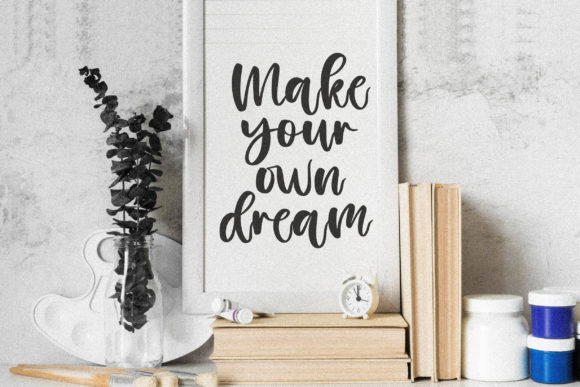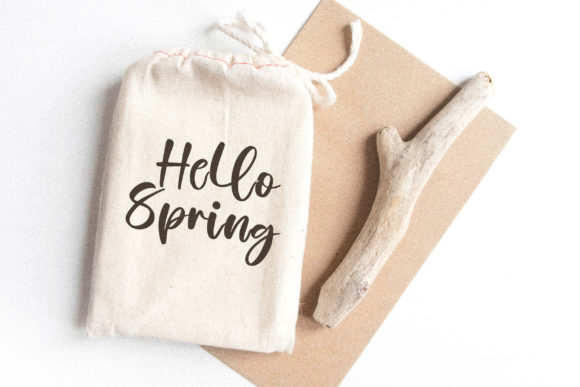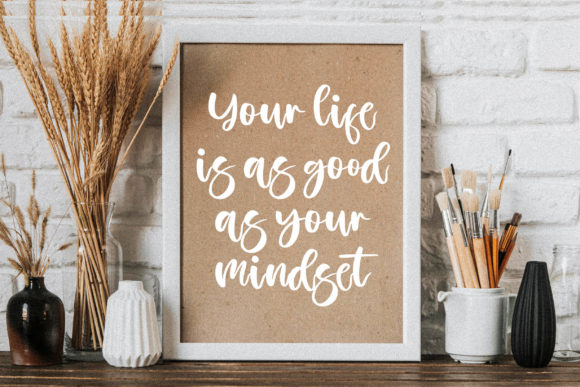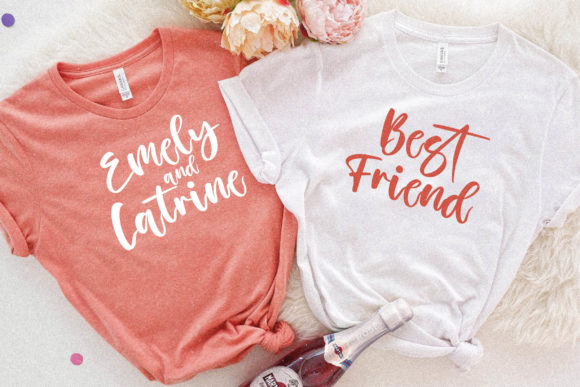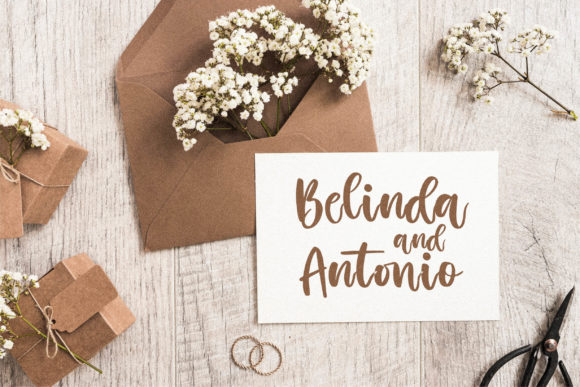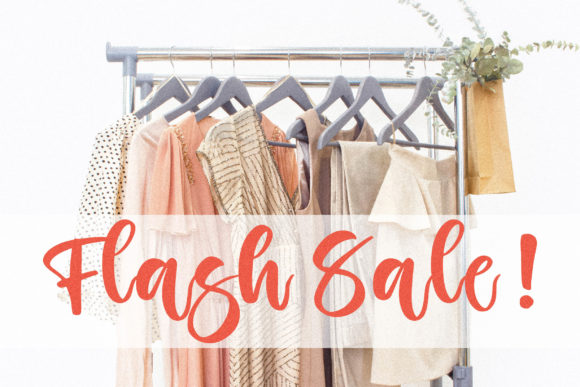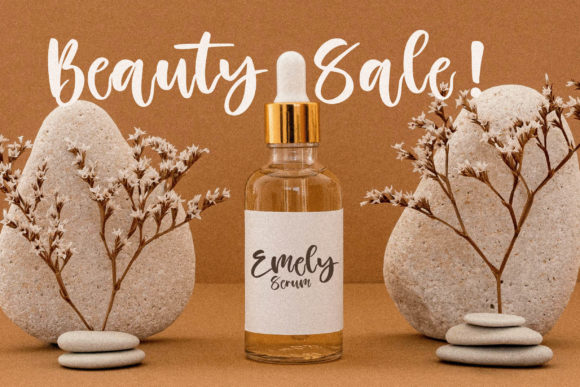
Kissing Love Font
About Kissing Love Font
Kissing Love is a lovely script font featuring charming, playful characters that seem to dance along the baseline. Add this font to your most creative ideas, and notice how it makes them stand out!